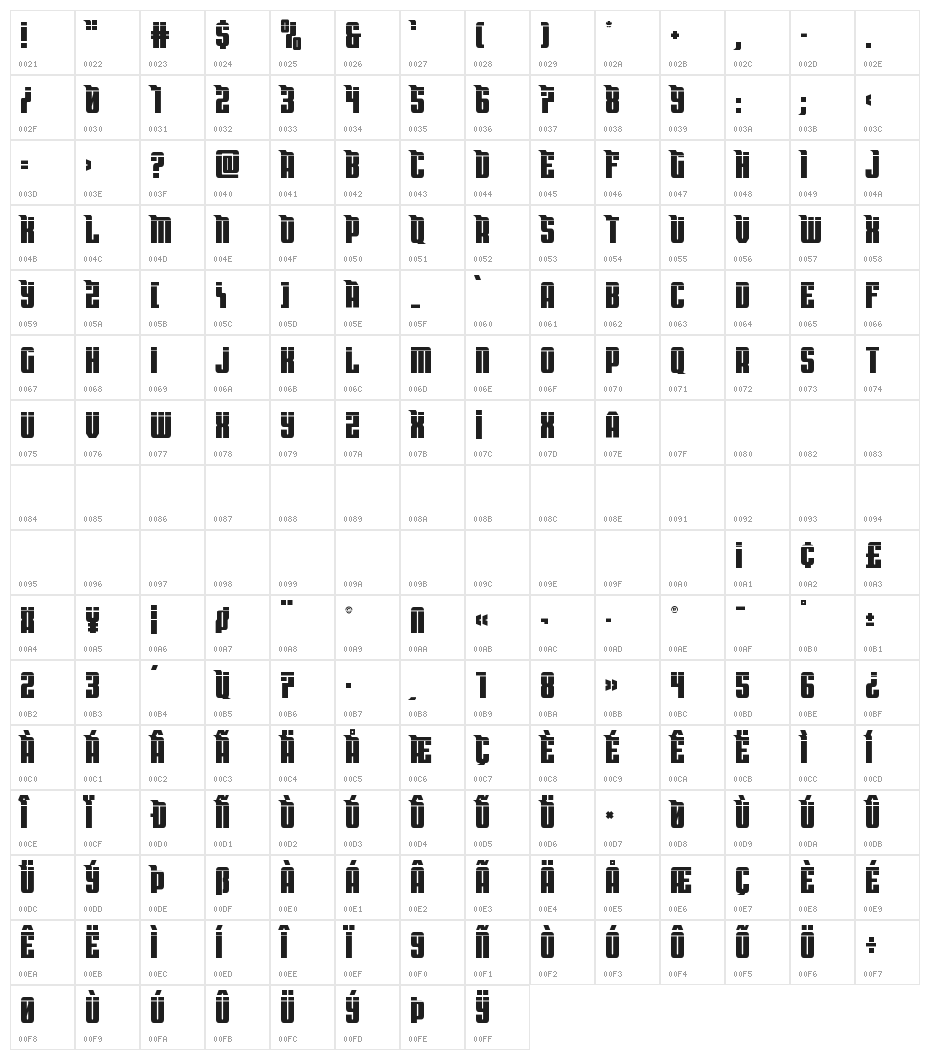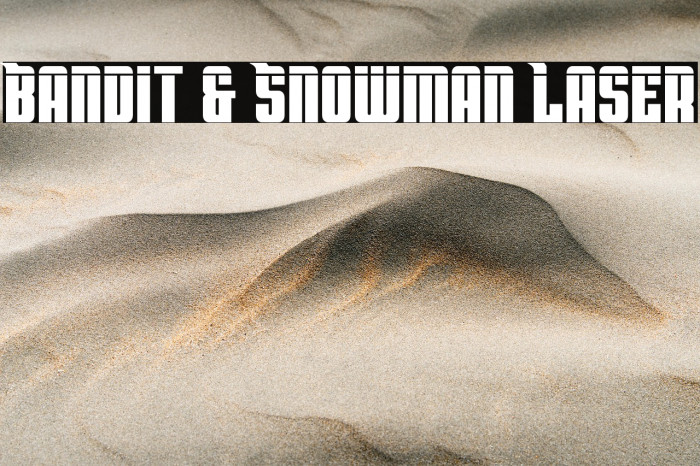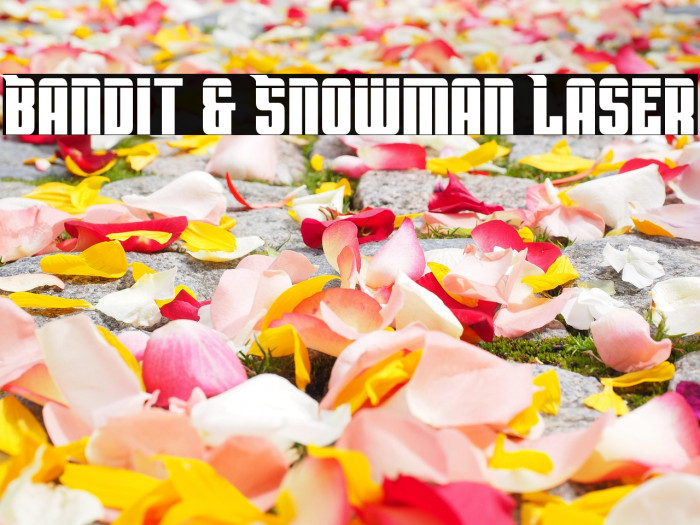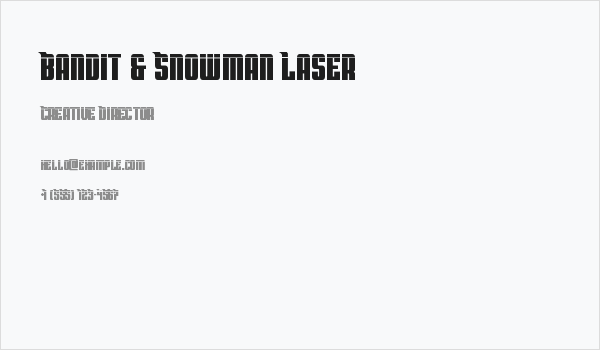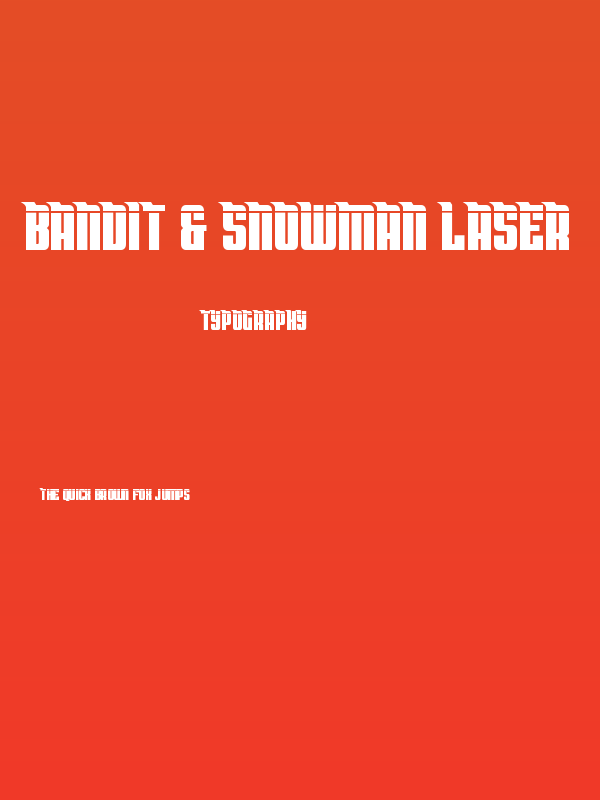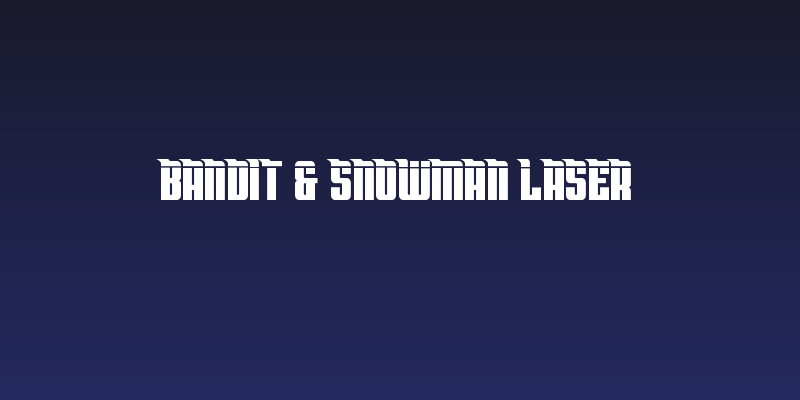
Bandit & Snowman Laser Font
Bandit & Snowman Laser Description
This font features a bold and striking design with a futuristic and industrial aesthetic. The characters are blocky and robust, with a unique cut-out style that adds a sense of depth and dimension. The uppercase letters are particularly prominent, with a strong presence that commands attention. The numbers and special characters maintain the same boldness, ensuring consistency across all elements. This font is perfect for projects that require a modern and edgy look, such as tech-related branding or sci-fi themed designs.
| Proposed Projects | Ideal for tech branding, sci-fi themes, posters, and video game titles. |